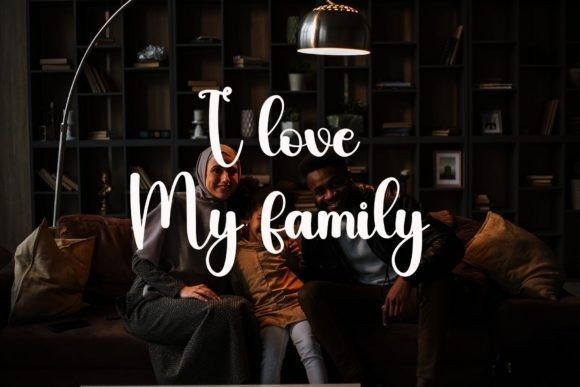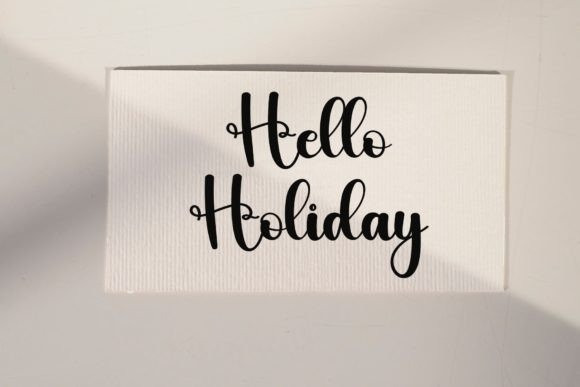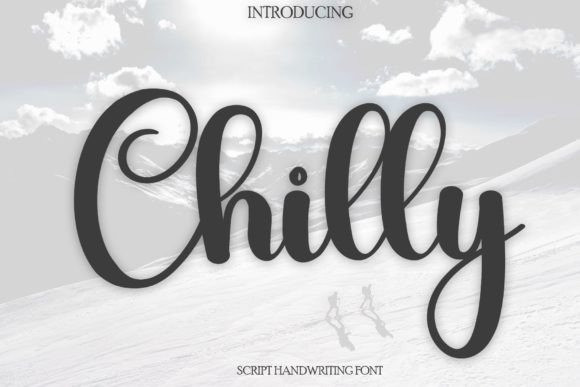
Chilly Script Font
Chilly Script Font is a fun and friendly handwritten font. Use it to turn any design idea into a true standout. Get inspired by its unique charm and create lovely designs.